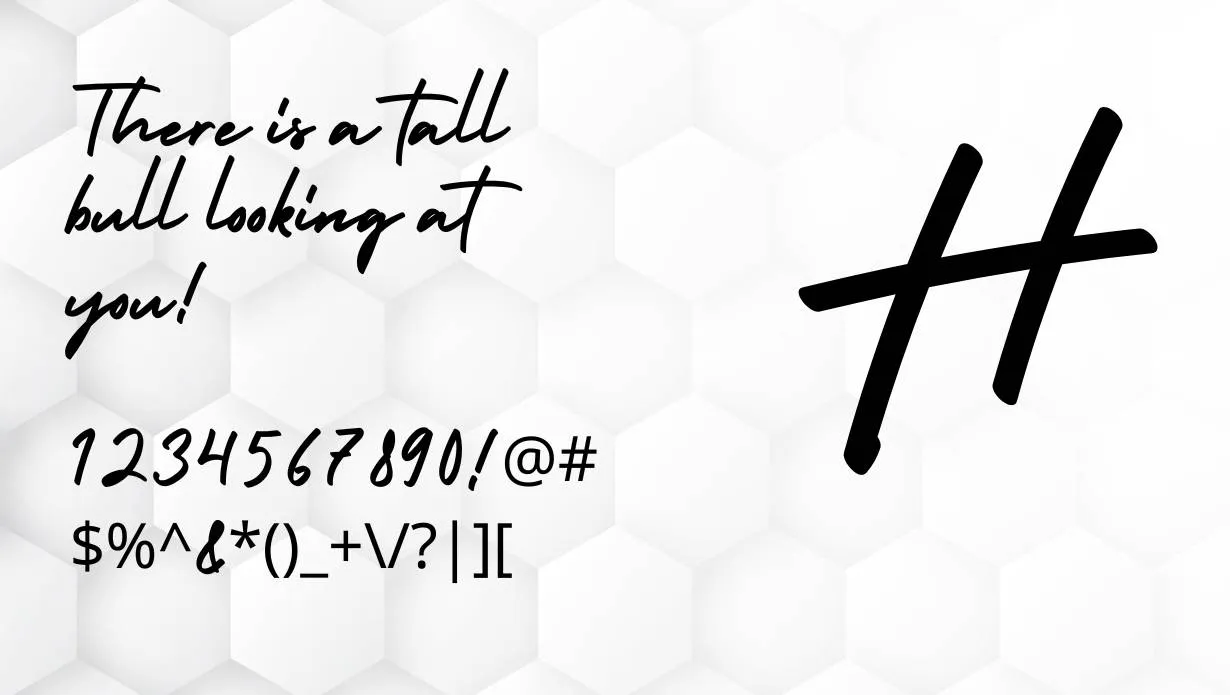
Holiday Bold Script Font Free Download
Holiday Bold Script Font is a festive and lively typeface designed for celebratory occasions. With its bold and playful characters, this font is commonly used in designs related to holidays, parties, or any festive event.
Holiday Bold Script Font adds a touch of cheer and exuberance to your text, making it a perfect choice for invitations, banners, or any design that aims to convey a sense of celebration.
| Name | Holiday Bold Script Font |
| Designer | Attype-Studio |